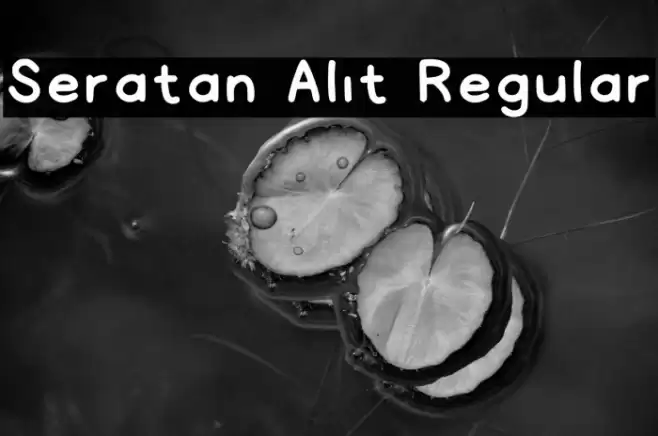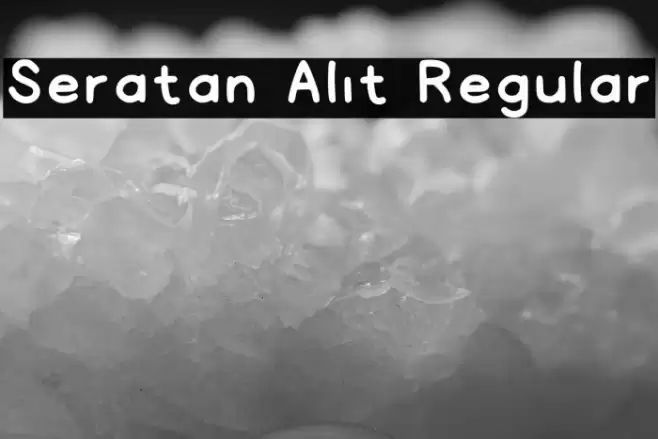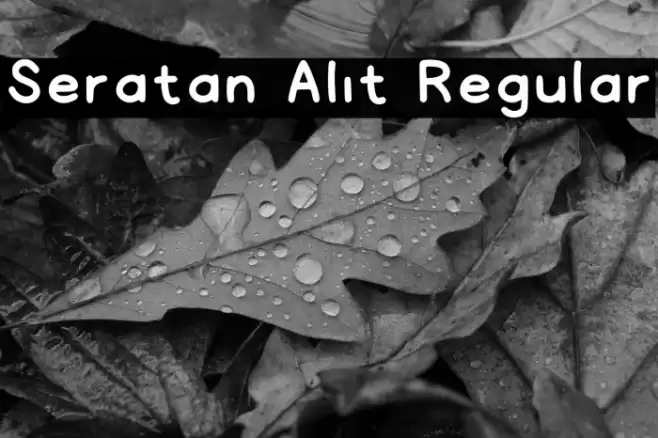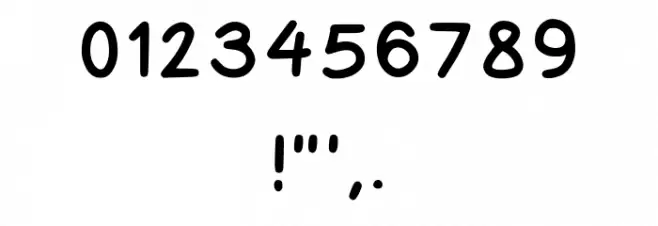
Seratan Alit Regular Font
Seratan Alit Regular Description
This playful and rounded font exudes a friendly and approachable vibe, making it ideal for projects that require a touch of whimsy and warmth. The characters are evenly spaced with a consistent stroke width, contributing to a clean and legible appearance. The font's rounded edges and slightly irregular shapes give it a handwritten feel, adding a personal touch to any design. Its simplicity and charm make it versatile for a variety of uses, from children's books to casual branding. The font maintains clarity across both uppercase and lowercase letters, as well as numbers and special characters, ensuring readability in different contexts.
A playful, rounded font with a friendly, handwritten feel from Regular fonts.
- Proposed Projects: Ideal for children's books, casual branding, greeting cards, and playful posters.
- Overall Style: Playful
- Use Case: Headlines, Logos, Informal Text